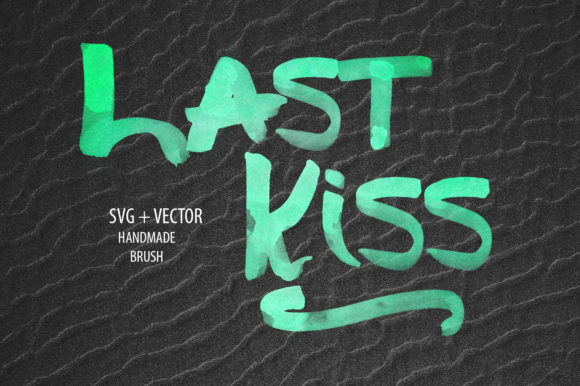
Last Kiss Font
Introducing Last Kiss, the script font that will ignite your creativity and leave a lasting impression on your designs. Crafted by the visionary Ahmet Faruk Åžahin, this font embodies strength and authenticity, with a touch of experimental flair that sets it apart from the rest.
With its bold, sweeping strokes and raw, edgy aesthetic, Last Kiss is not for the faint of heart. It's a font that demands attention and commands respect, making it the perfect choice for projects that require a touch of attitude. Whether you're designing logos, branding materials, or eye-catching headlines, Last Kiss will add a unique flavor that will make your creations truly unforgettable.
But Last Kiss is more than just a pretty face. It's a versatile font that can adapt to a wide range of design styles, from the classic to the contemporary. Its experimental edge gives it a modern, cutting-edge look, while its strong, raw character ensures it can hold its own in more traditional settings.
So if you're looking for a font that will add a touch of spice to your designs and make your creations stand out from the crowd, then Last Kiss is the perfect choice. Its bold, edgy aesthetic and versatile nature make it a must-have for any designer's toolkit.